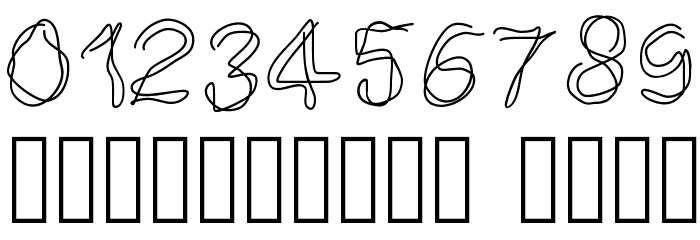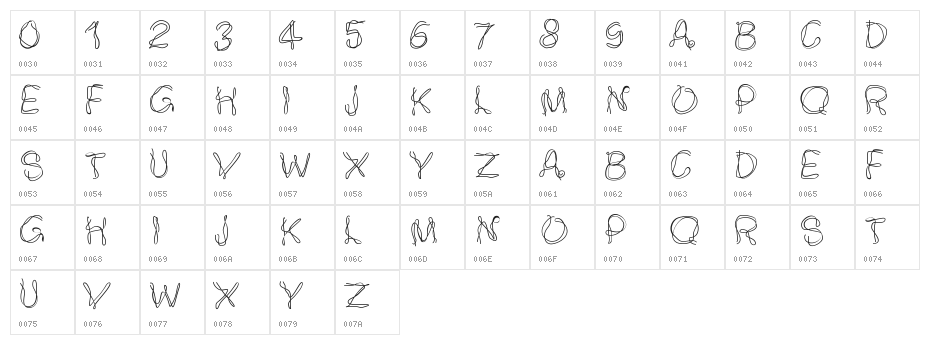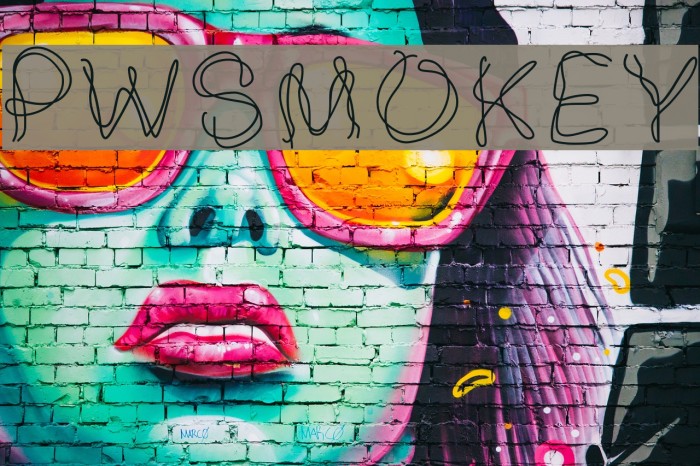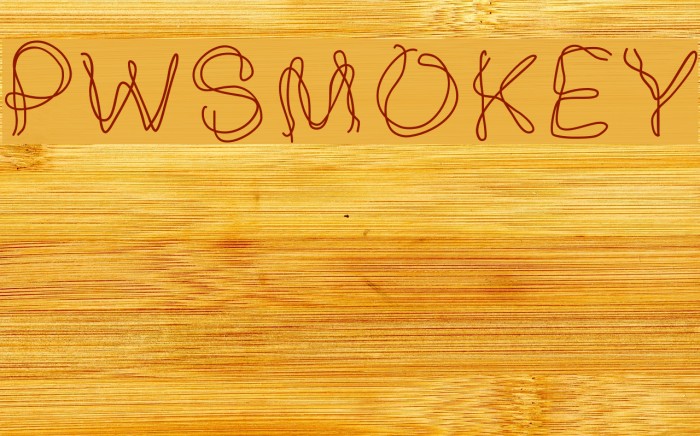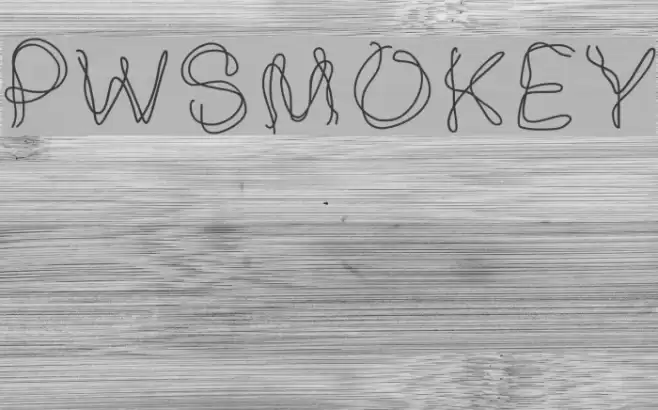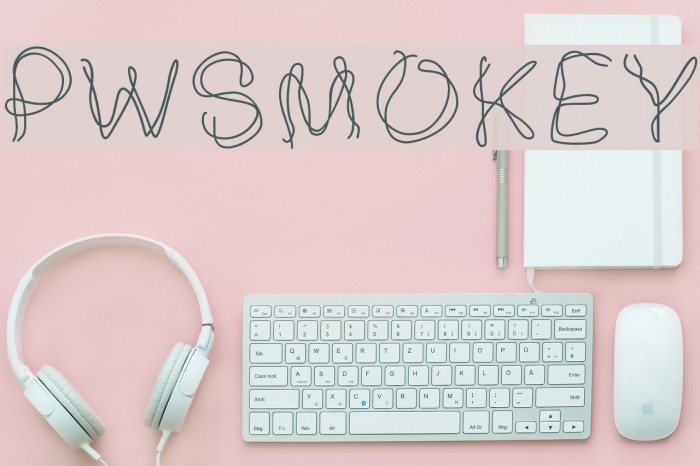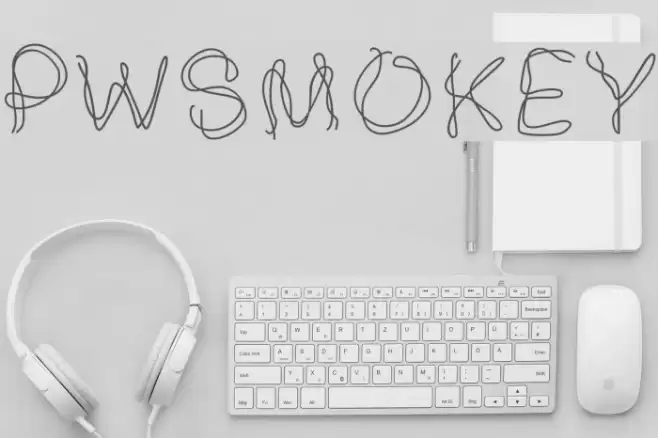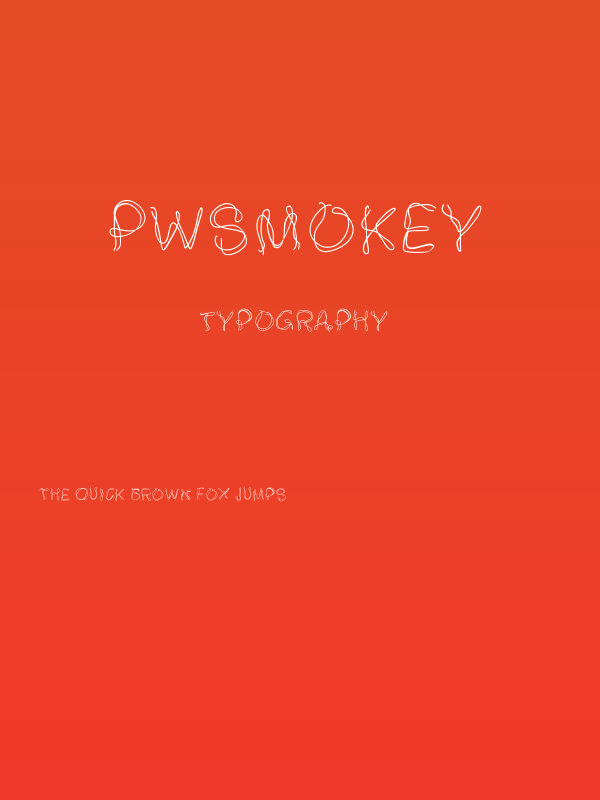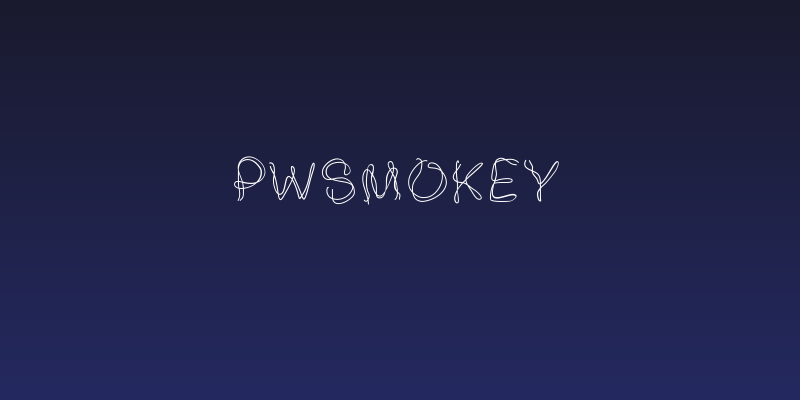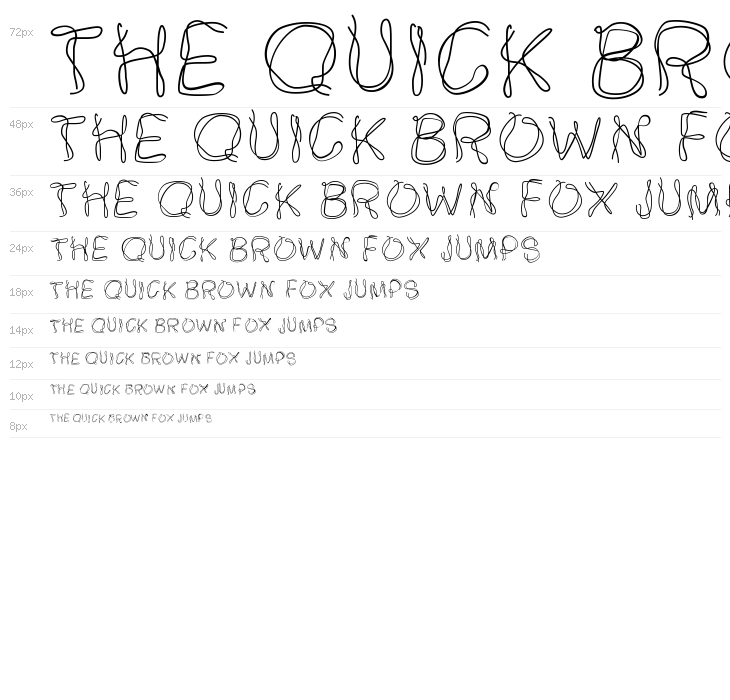
PWSmokey Font
PWSmokey Description
This font features a whimsical and playful design, characterized by its looping, interconnected strokes that create a sense of movement and fluidity. The letters are crafted with a unique, hand-drawn style that gives them a lively and energetic appearance. Each character appears as if it is made from a continuous line, adding to the font's dynamic and artistic feel. The numbers and special characters maintain this cohesive style, ensuring a consistent look across all text elements. This font is perfect for projects that require a touch of creativity and individuality.
| Overall Style | Playful, Artistic |
| Use Case | Logos, Posters, Creative Projects |
| Proposed Projects | Ideal for creative projects such as children's books, artistic posters, and playful branding materials. |